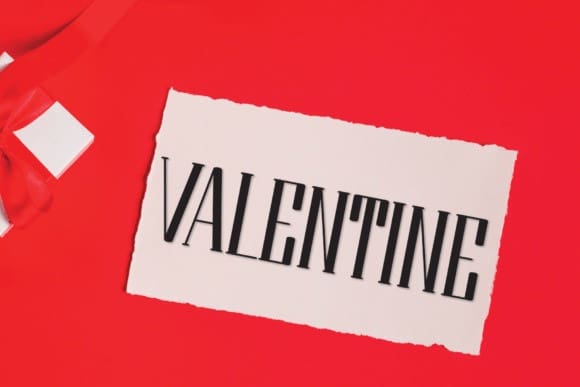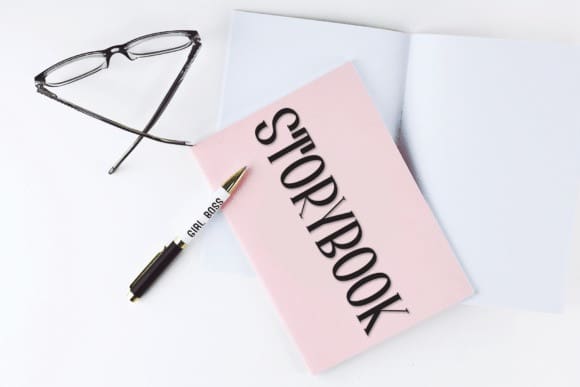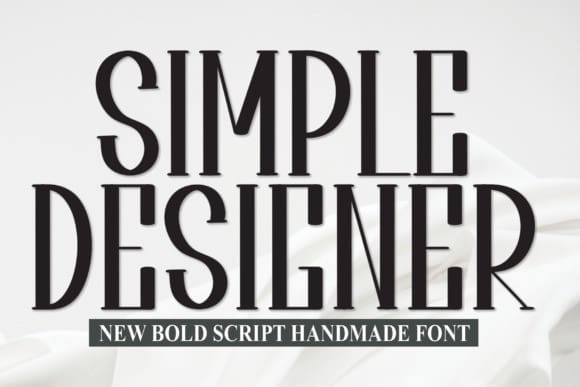
Simple Designer Font
Simple Designer Font, is a beautiful bold Slab Serif font. It’s the perfect choice for wall displays, wedding invitations, social media post logos, advertisements, product packaging, product designs, labels, photography, watermarks, invitations, stationery, and any project that requires taste handwriting.